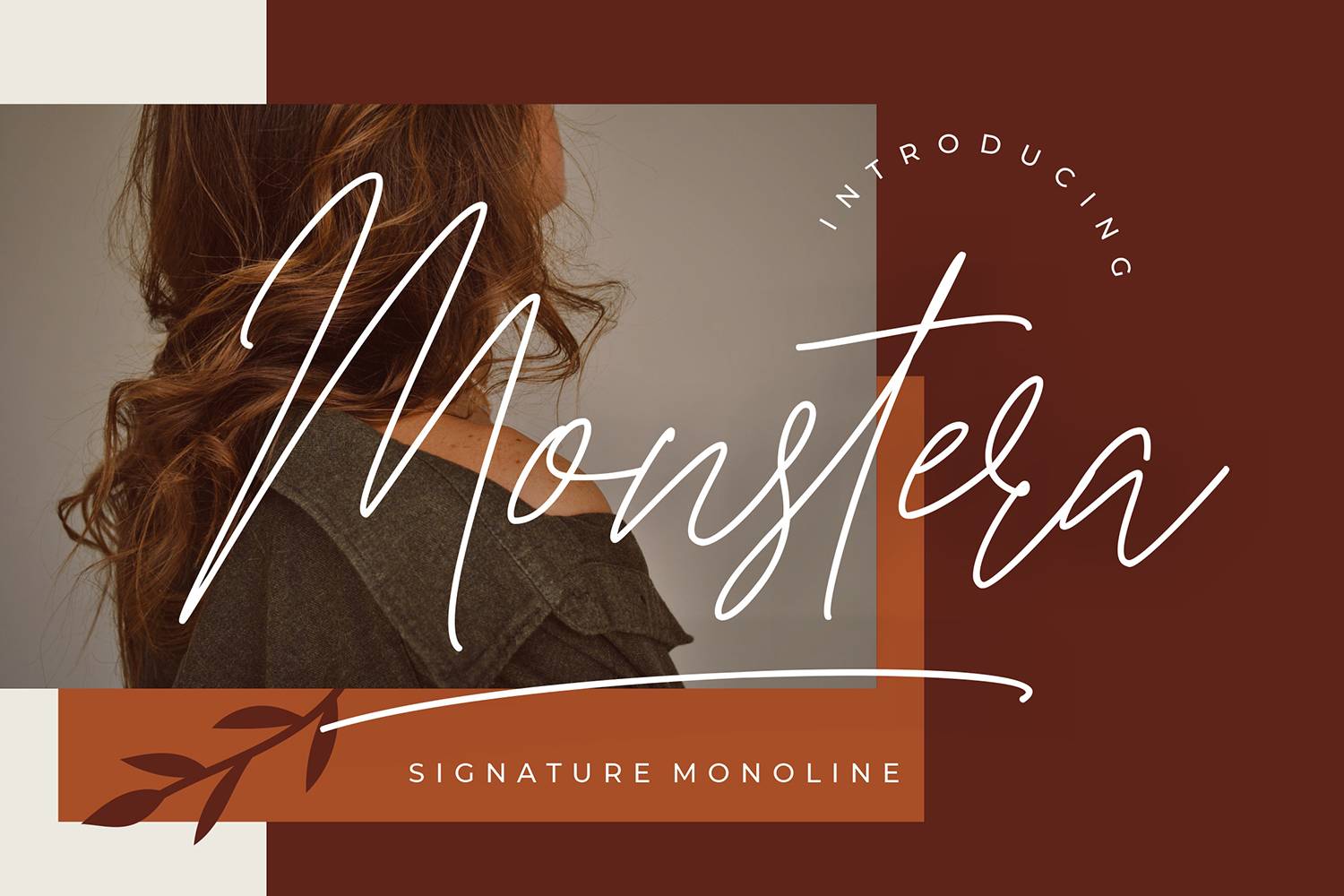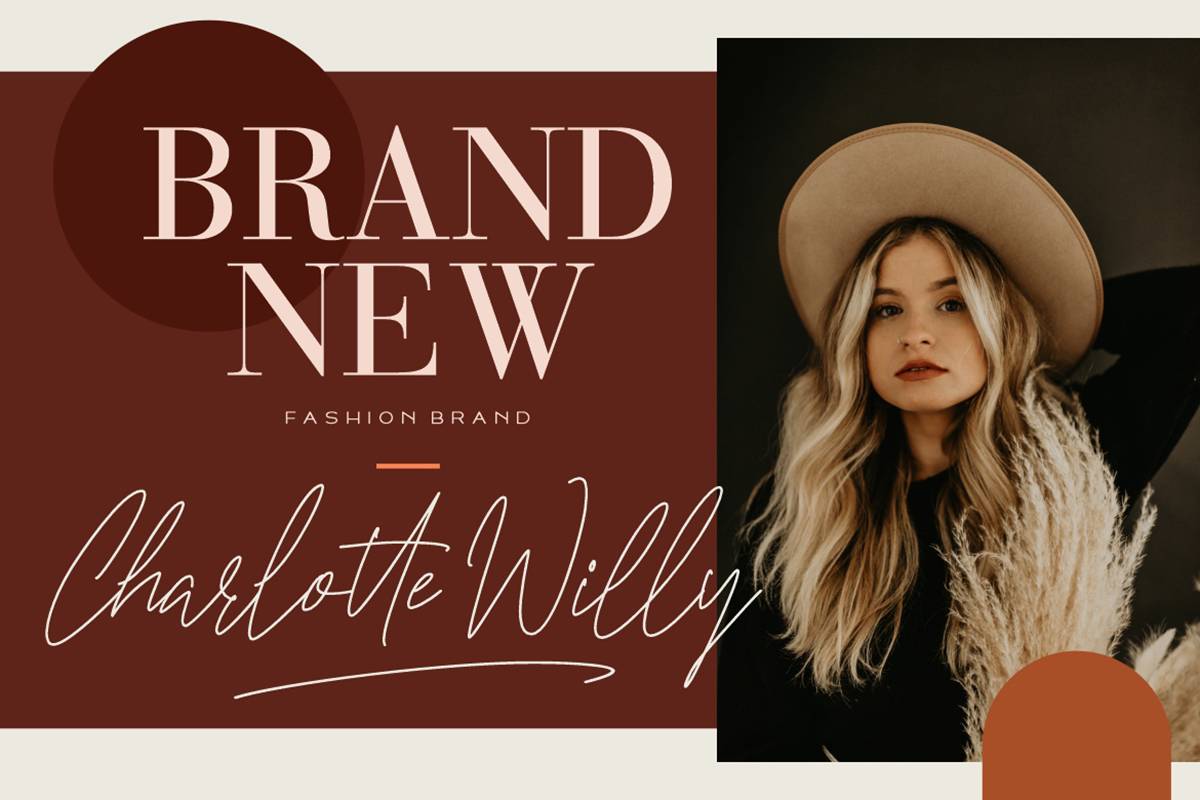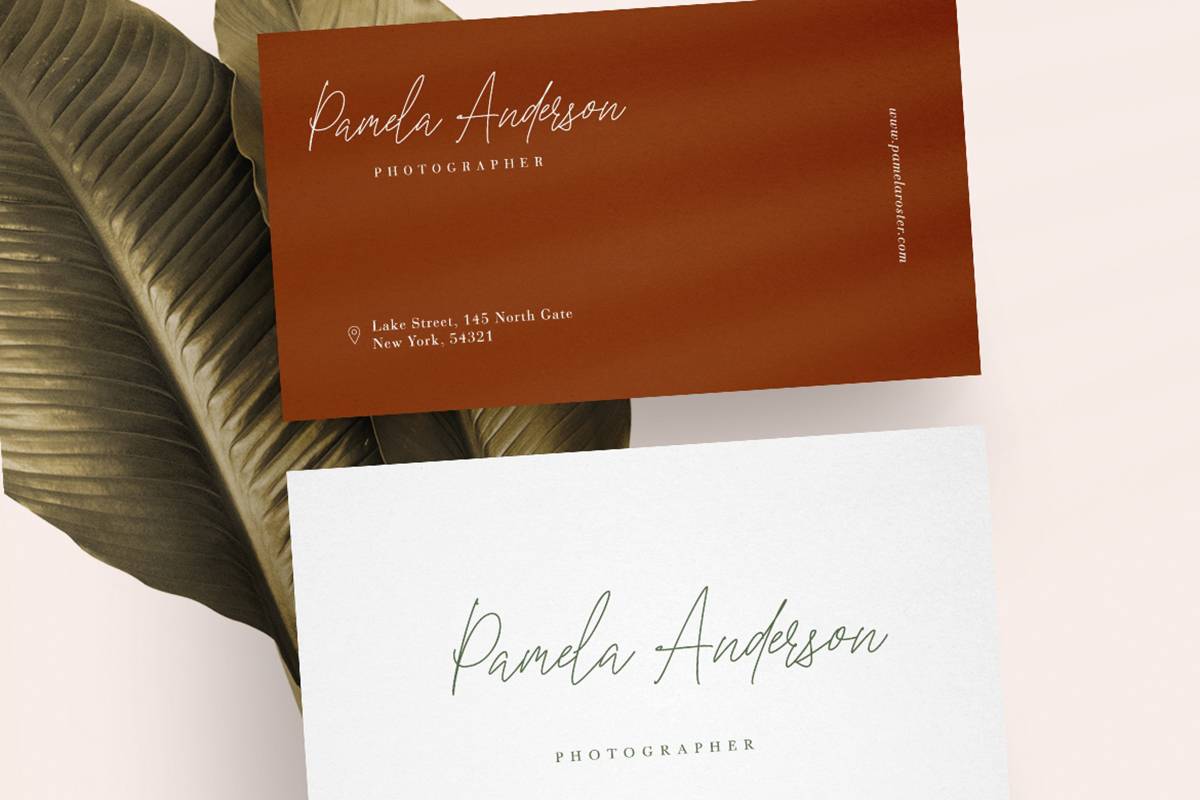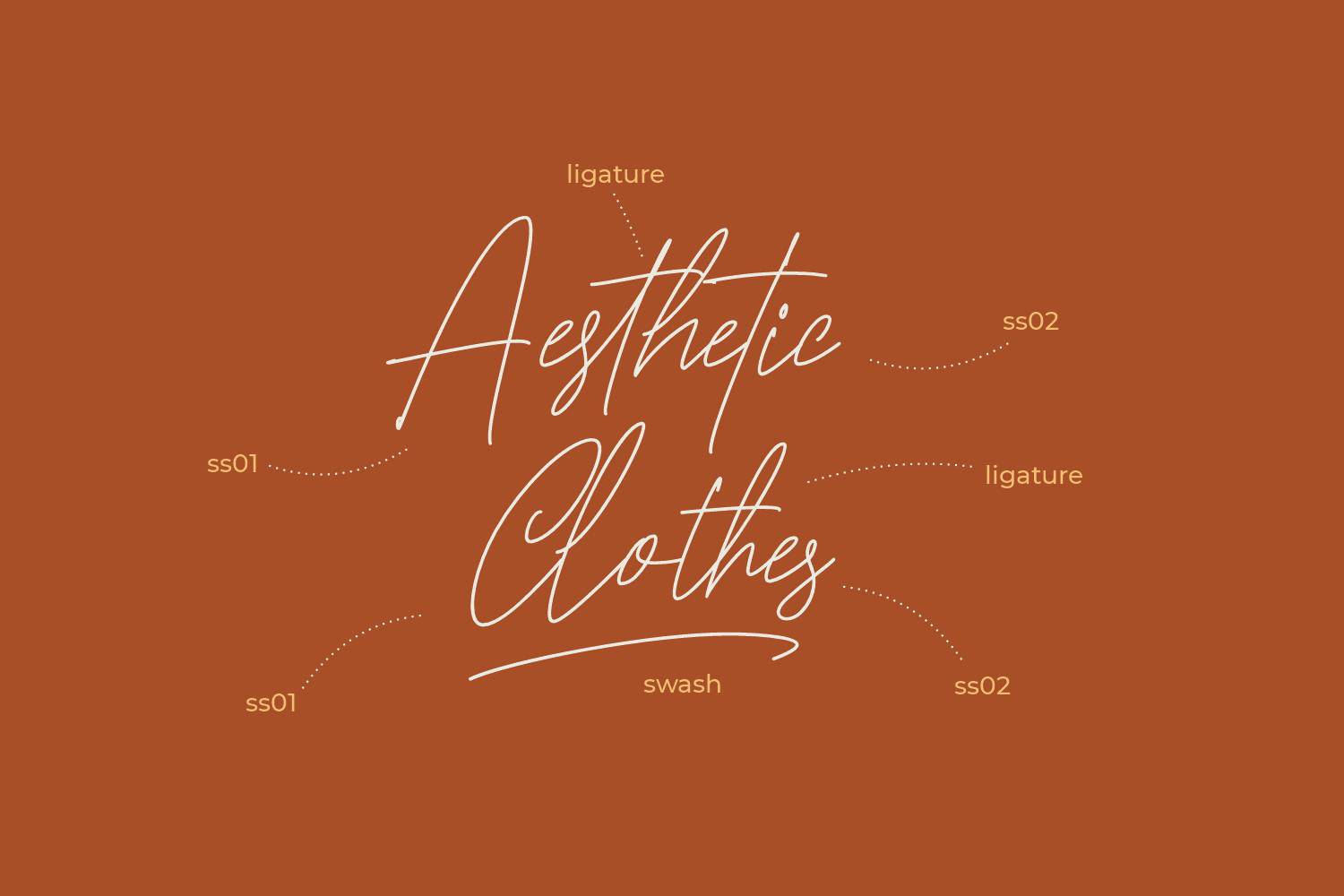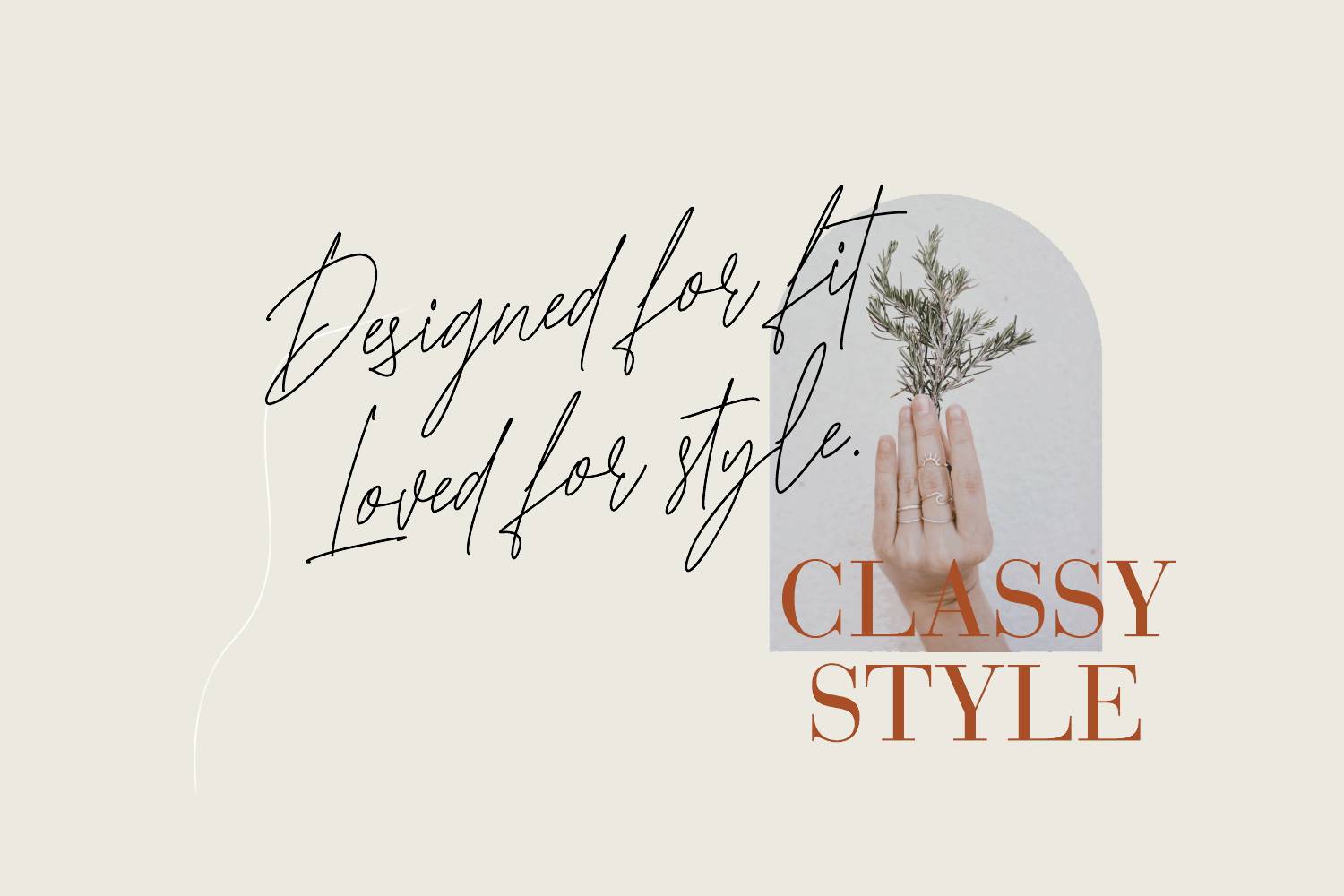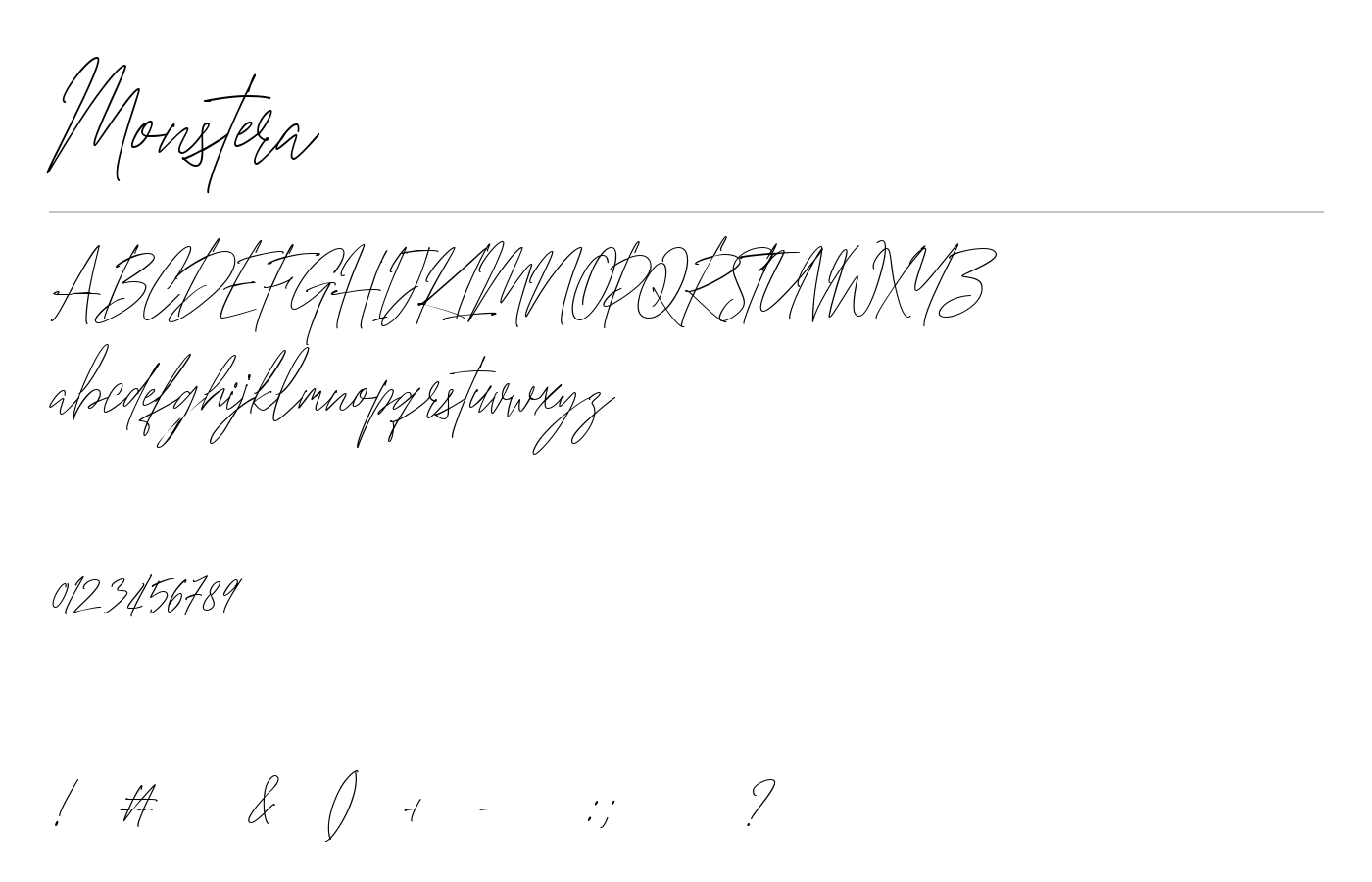
Monstera is a delicate, handwritten script font featuring slender, flowing strokes that create an elegant and natural feel. Its light weight and airy spacing make it perfect for adding a personal, sophisticated touch to branding, invitations, and stylish editorial designs. This font works beautifully where a refined, artistic vibe is desired.
Monstera Font
About Monstera Font
| Font family | Monstera Font |